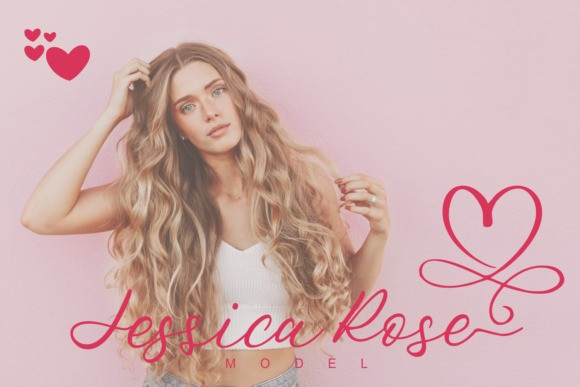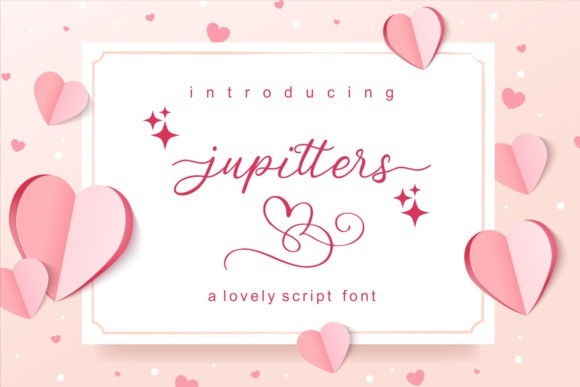
Jupitters Font
Jupitters Font is a stylish and delicate handwritten font. It is suitable for branding, signature, wedding invitation, promotion, product packaging, and various other needs.